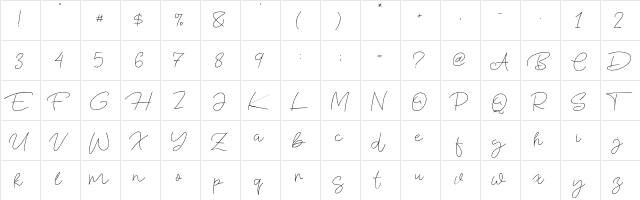
Blue Fonte Regular
| Foundry | Khurasan |
| Designer | Khurasan |
Design Context for Blue Fonte Typeface
Blue Fonte is a composed and adaptable typeface that performs quietly and consistently across a wide range of design contexts.